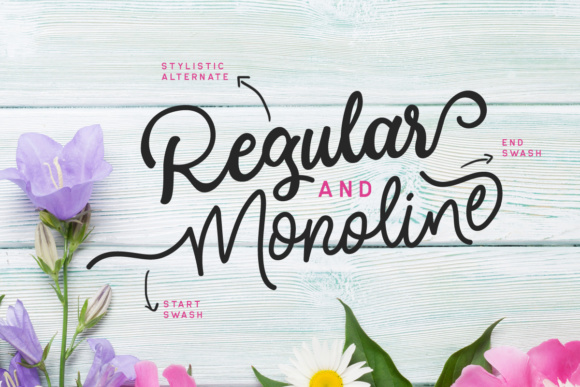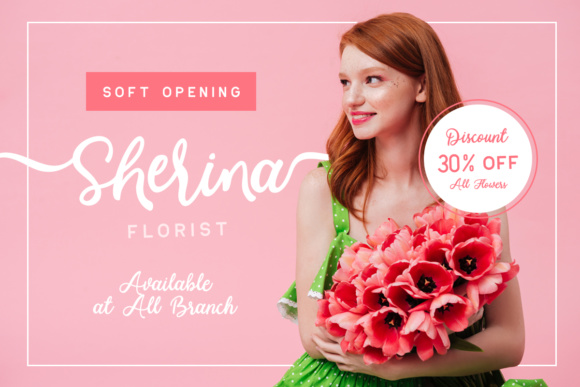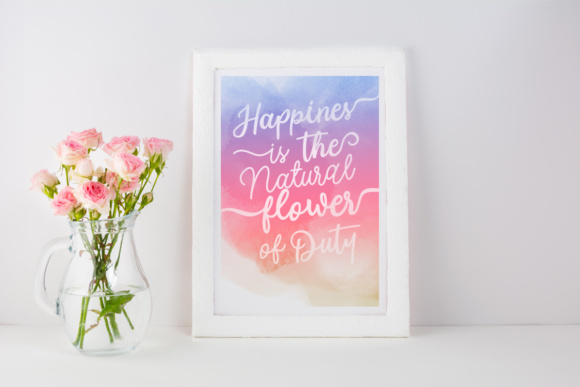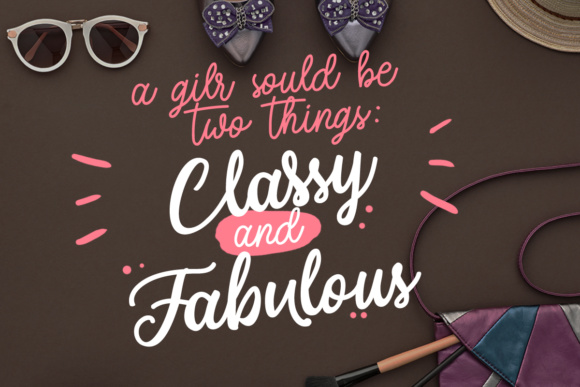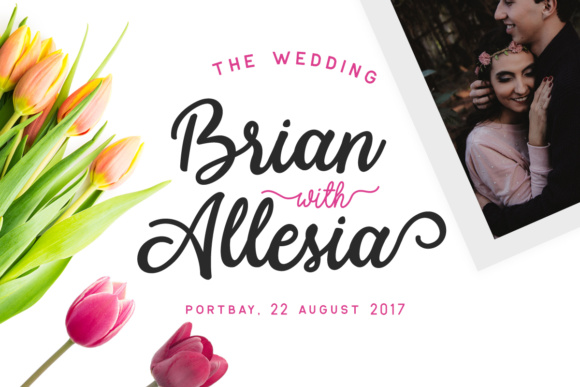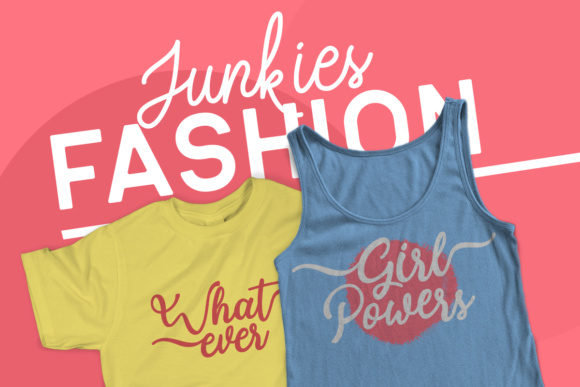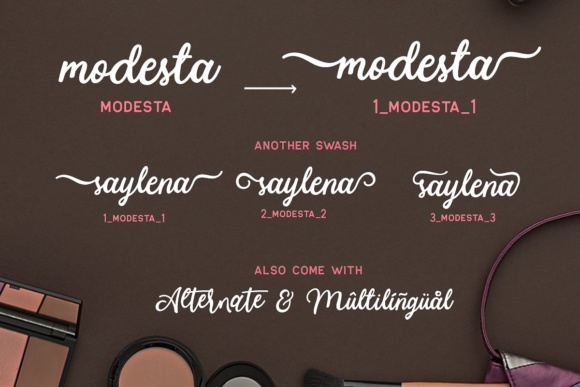
Modesta Script Font
About Modesta Script Font
This font has two types of style, monoline and regular. Perfect to be used for project with a feminine & girly theme!